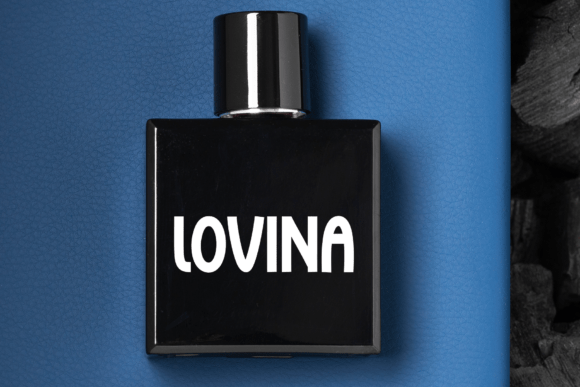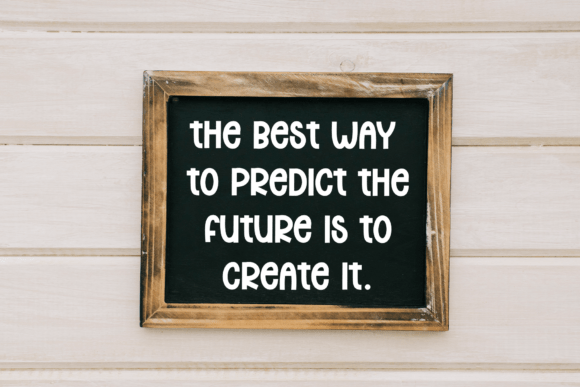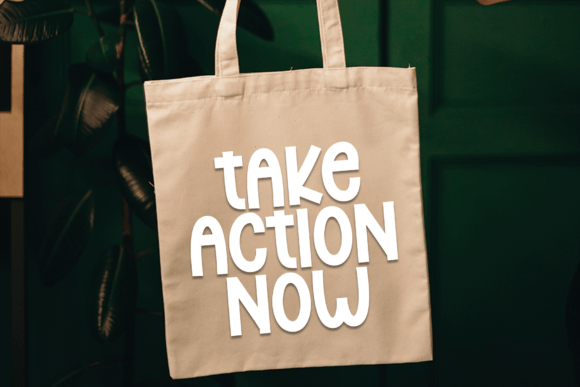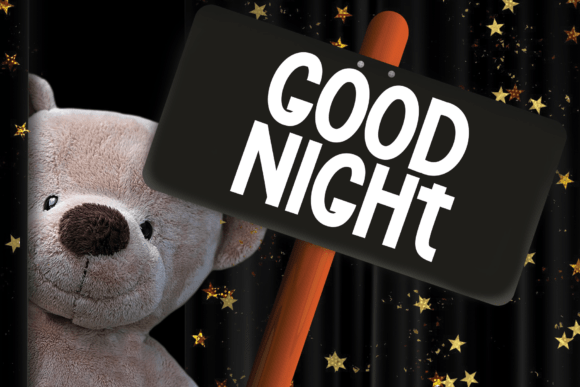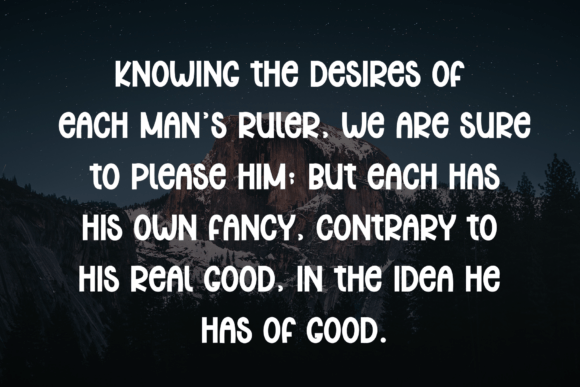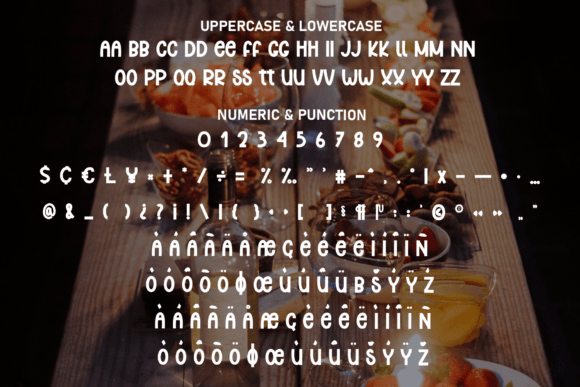
Dinner Delicious Font: Elevate Your Designs with a Fresh and Friendly Vibe
Are you on the hunt for a font that can add a touch of warmth and approachability to your designs? Look no further than the Dinner Delicious font. This casual and neat display font is perfect for designers and crafters who want to infuse their projects with a fresh and friendly vibe. In this article, we’ll dive into the features and benefits of Dinner Delicious, and explore how it can elevate your designs.
Clean Lines and Relaxed Structure
One of the standout features of Dinner Delicious is its clean lines and relaxed structure. This font boasts a modern and sleek aesthetic that’s perfect for a variety of design applications. Whether you’re working on packaging, posters, or social media graphics, Dinner Delicious is the perfect choice. The clean lines and relaxed structure of the font ensure that your designs look polished and professional, while also conveying a sense of approachability and friendliness.
Dinner Delicious is a versatile font that’s perfect for designers and crafters alike. Whether you’re working on a branding project, creating social media graphics, or designing packaging, this font is sure to impress. The approachable design of Dinner Delicious adds charm and clarity to projects, making it easy to connect with your audience. Plus, the font’s polished appearance ensures that your designs look professional and put-together.
Key Features of Dinner Delicious
- Casual and neat display font: Dinner Delicious is a display font that’s perfect for headlines, titles, and other design elements.
- Fresh and friendly vibe: This font radiates a warm and approachable vibe that’s perfect for brands that want to connect with their audience.
- Clean lines and relaxed structure: The font’s clean lines and relaxed structure make it perfect for a variety of design applications.
- Perfect for packaging, posters, and social media graphics: Dinner Delicious is a versatile font that can be used for a variety of design projects.
How to Use Dinner Delicious in Your Designs
So, how can you use Dinner Delicious in your designs? Here are a few ideas to get you started:
- Pair it with bold colors: Dinner Delicious looks great when paired with bold, bright colors. Try using it with a bold color scheme to add a pop of personality to your designs.
- Use it for headlines and titles: This font is perfect for headlines and titles, as it’s designed to grab attention and make a statement.
- Experiment with different textures and patterns: Dinner Delicious looks great when paired with different textures and patterns. Try experimenting with different combinations to add depth and interest to your designs.
Why Choose Dinner Delicious?
So, why should you choose Dinner Delicious for your designs? Here are just a few reasons:
- Unique and eye-catching: This font is sure to grab attention and make your designs stand out.
- Versatile: Dinner Delicious can be used for a variety of design applications, from packaging to social media graphics.
- Easy to read: The font’s clean lines and relaxed structure make it easy to read, even at smaller sizes.
In conclusion, Dinner Delicious is a fantastic font that’s perfect for designers and crafters who want to add a touch of warmth and approachability to their designs. With its clean lines, relaxed structure, and fresh and friendly vibe, this font is sure to elevate your designs and help you connect with your audience. So why wait? Give Dinner Delicious a try today and see the difference it can make in your designs!